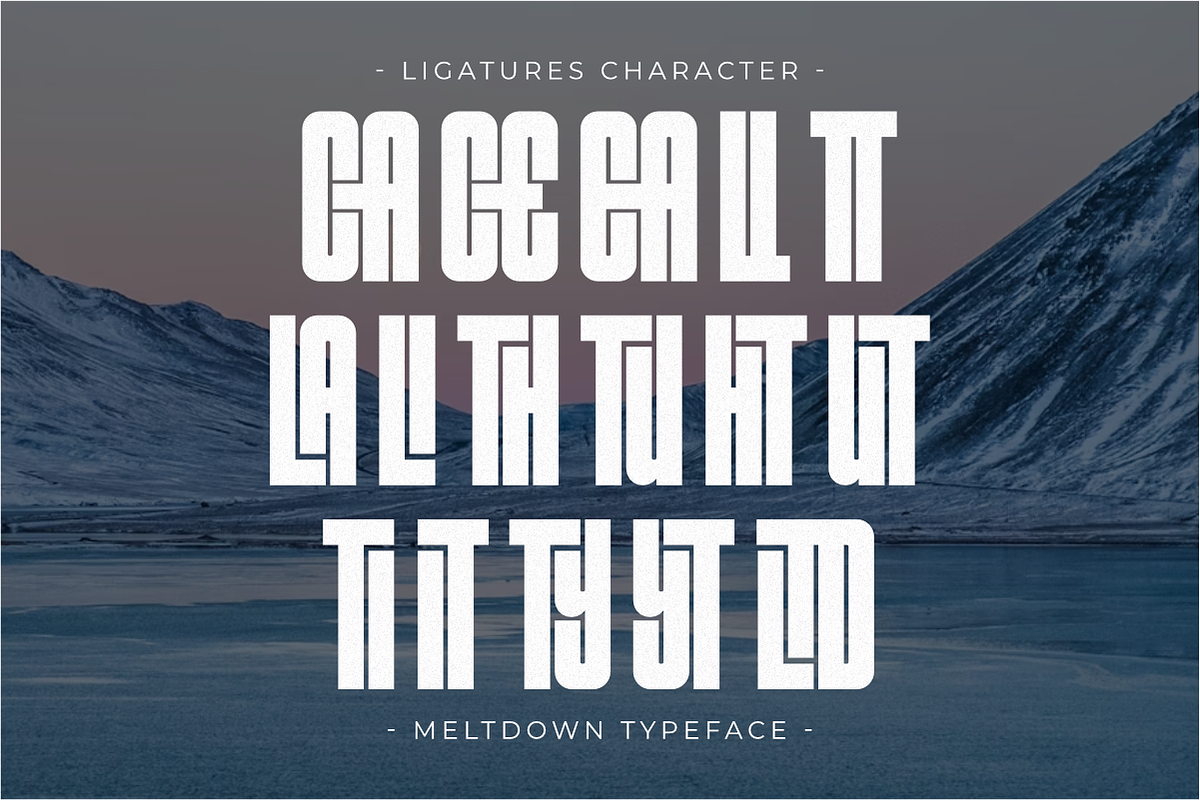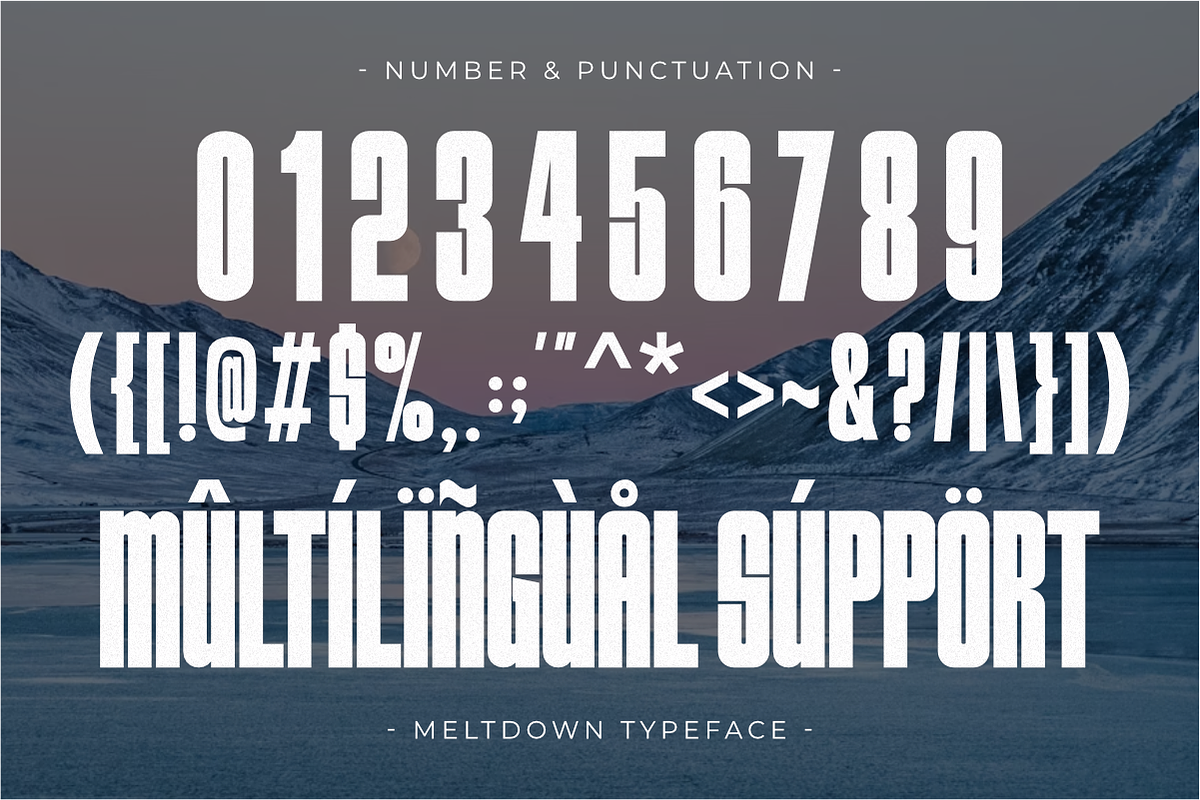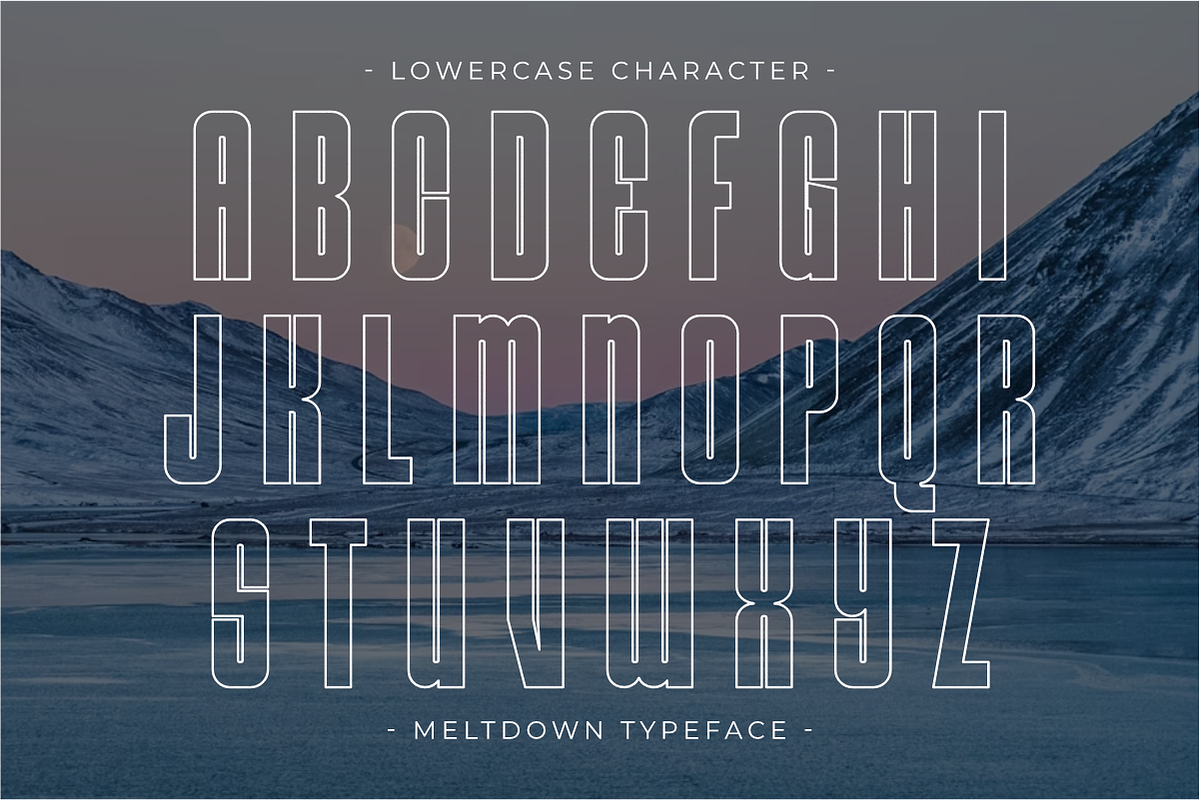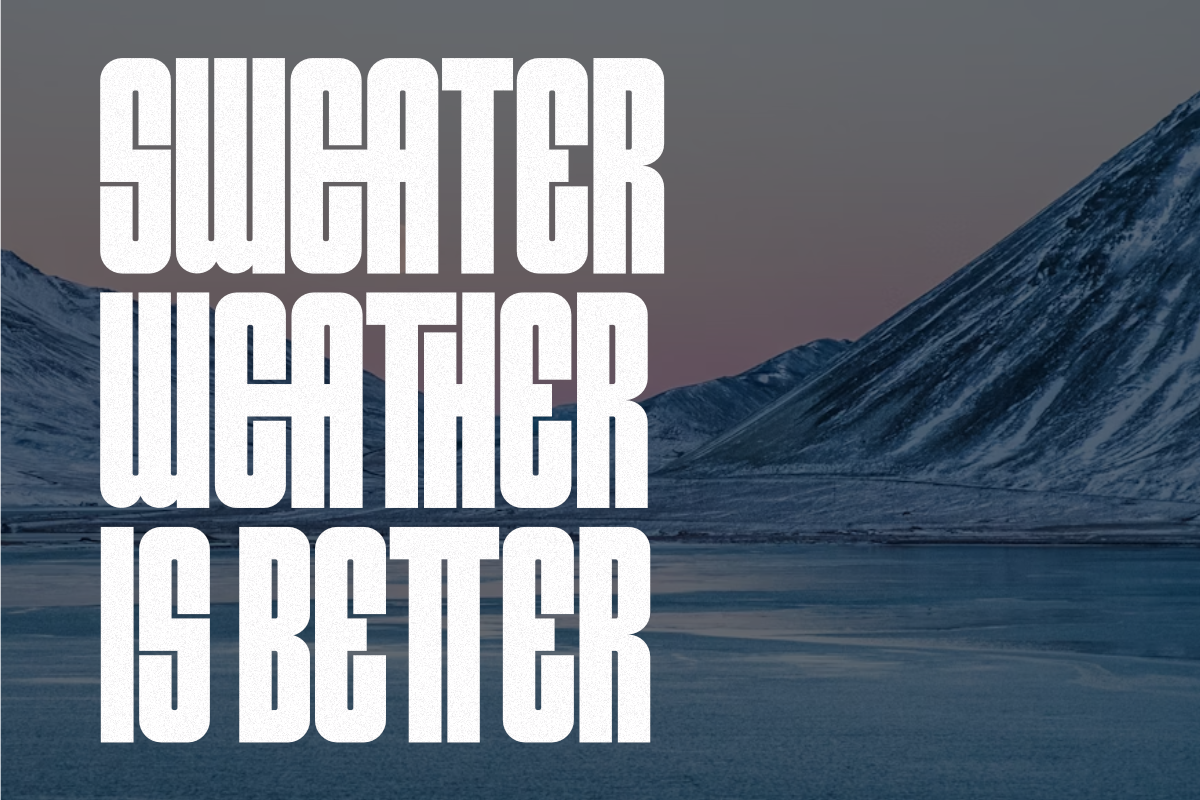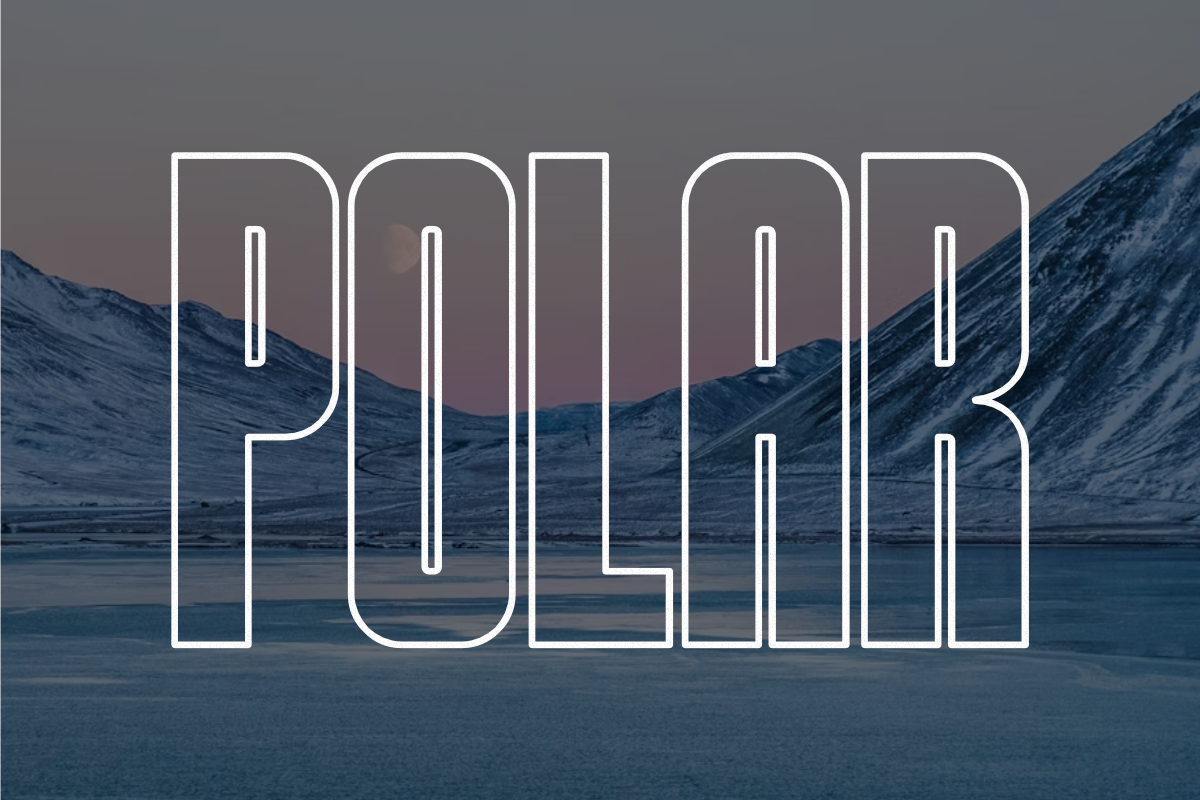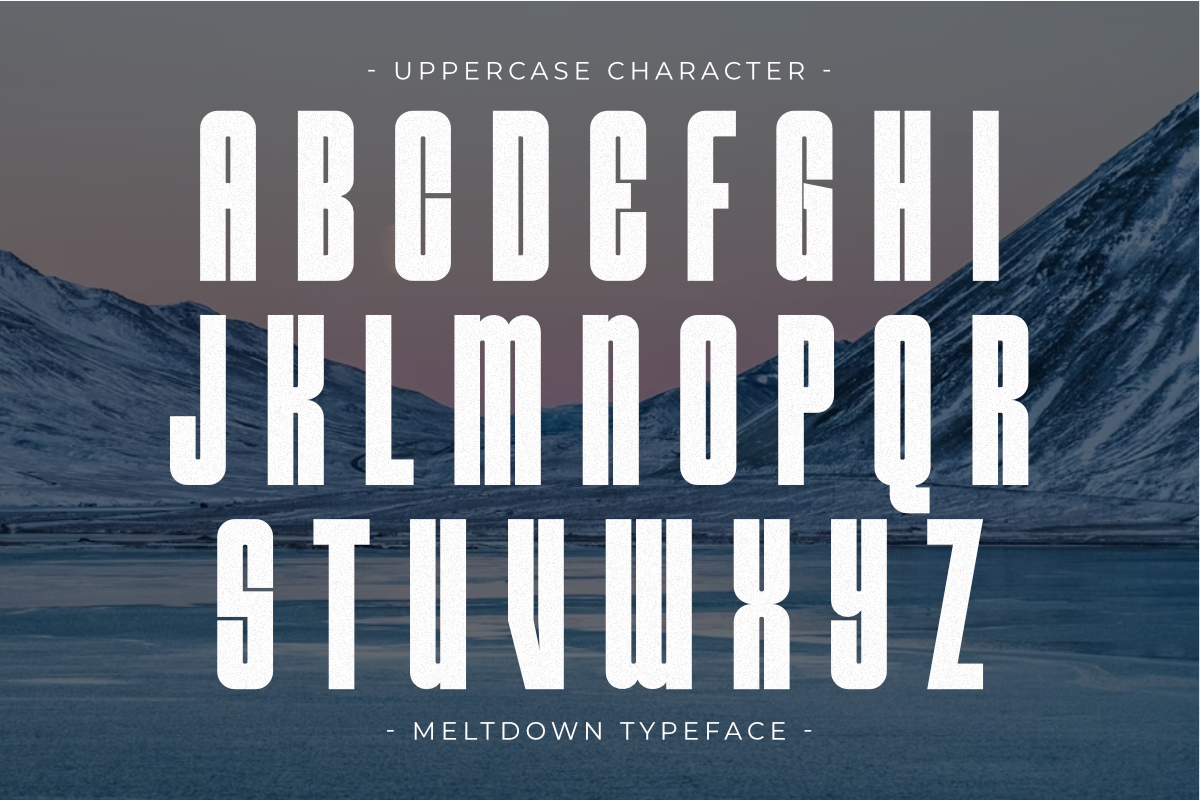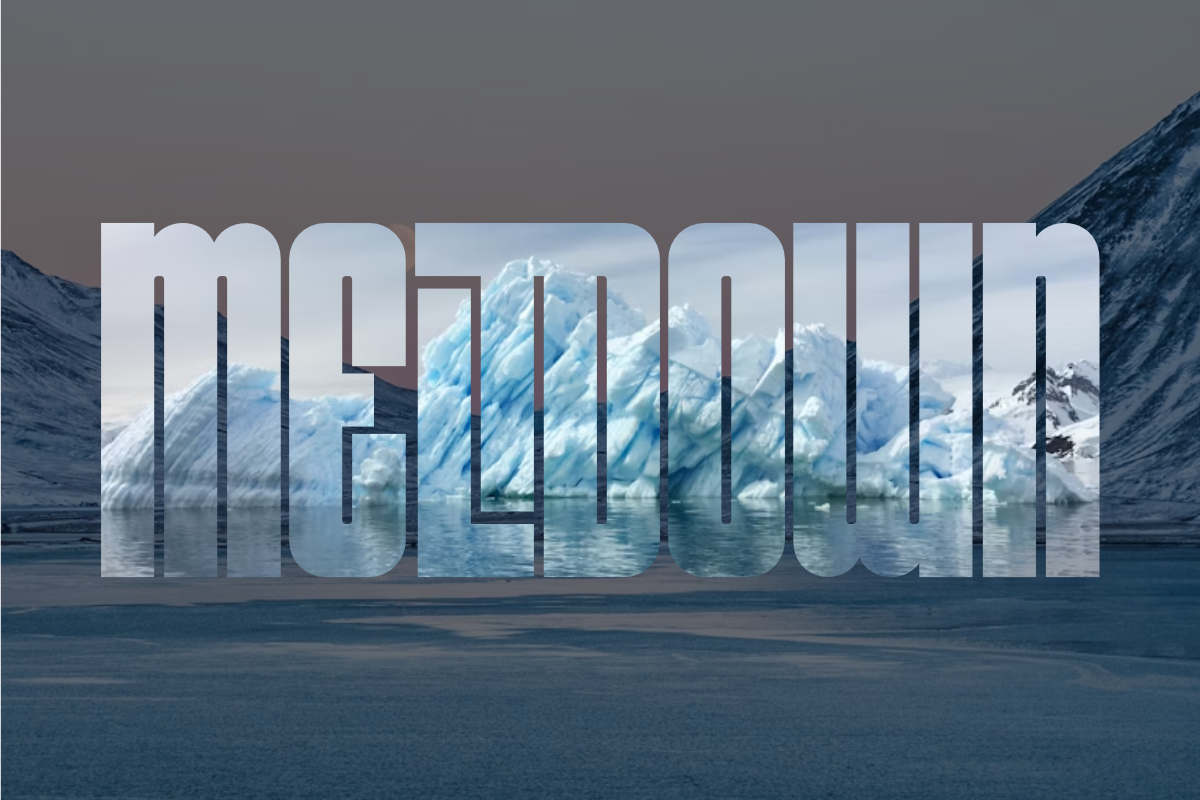
Meltdown - Condensed Sans Serif
Meltdown is a bold and striking Condensed Sans Serif font featuring both Regular and Outline styles for powerful layered effects. Its unique, clean block structure with gentle curves suggests a modern, fun, and frosty aesthetic, perfect for Winter and Christmas branding. This all-caps display font includes subtle ligatures for a custom touch, making it ideal for holiday apparel, seasonal posters, bold headlines, and memorable winter-themed logos. Meltdown delivers an impactful and professional, yet playful, visual identity.